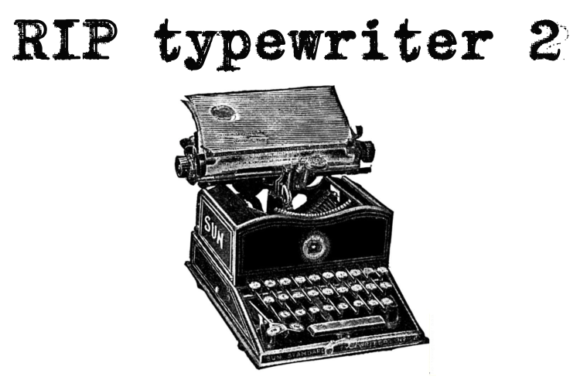
Prepare yourself to be captivated by the echoes of a bygone era with Rip Typewriter Font, a serif masterpiece crafted by Intellecta Design. This font exudes a vintage charm, reminiscent of the golden age of literature, inviting you to embark on a journey through time with each letter you type.
Immerse your senses in the tactile beauty of a typewriter, feel the gentle press of keys, and hear the rhythmic clatter that once filled newsrooms and libraries. Rip Typewriter Font breathes new life into the written word, transforming your digital creations into tangible works of art.
Let your imagination soar as you explore the boundless possibilities of this font. Its erased and much-inked style adds a layer of intrigue and authenticity to your designs, making them stand out from the ordinary. Create exquisite logos, captivating posters, and unforgettable book covers that evoke a sense of nostalgia and elegance.
Rip Typewriter Font is not just a font; it's a gateway to a world of stories waiting to be told. Its unique character whispers of untold tales, inviting readers to delve deeper into your words, to get lost in the narrative you weave. Whether you're a writer, a designer, or simply a lover of typography, this font will ignite your creativity and leave an indelible mark on your audience.